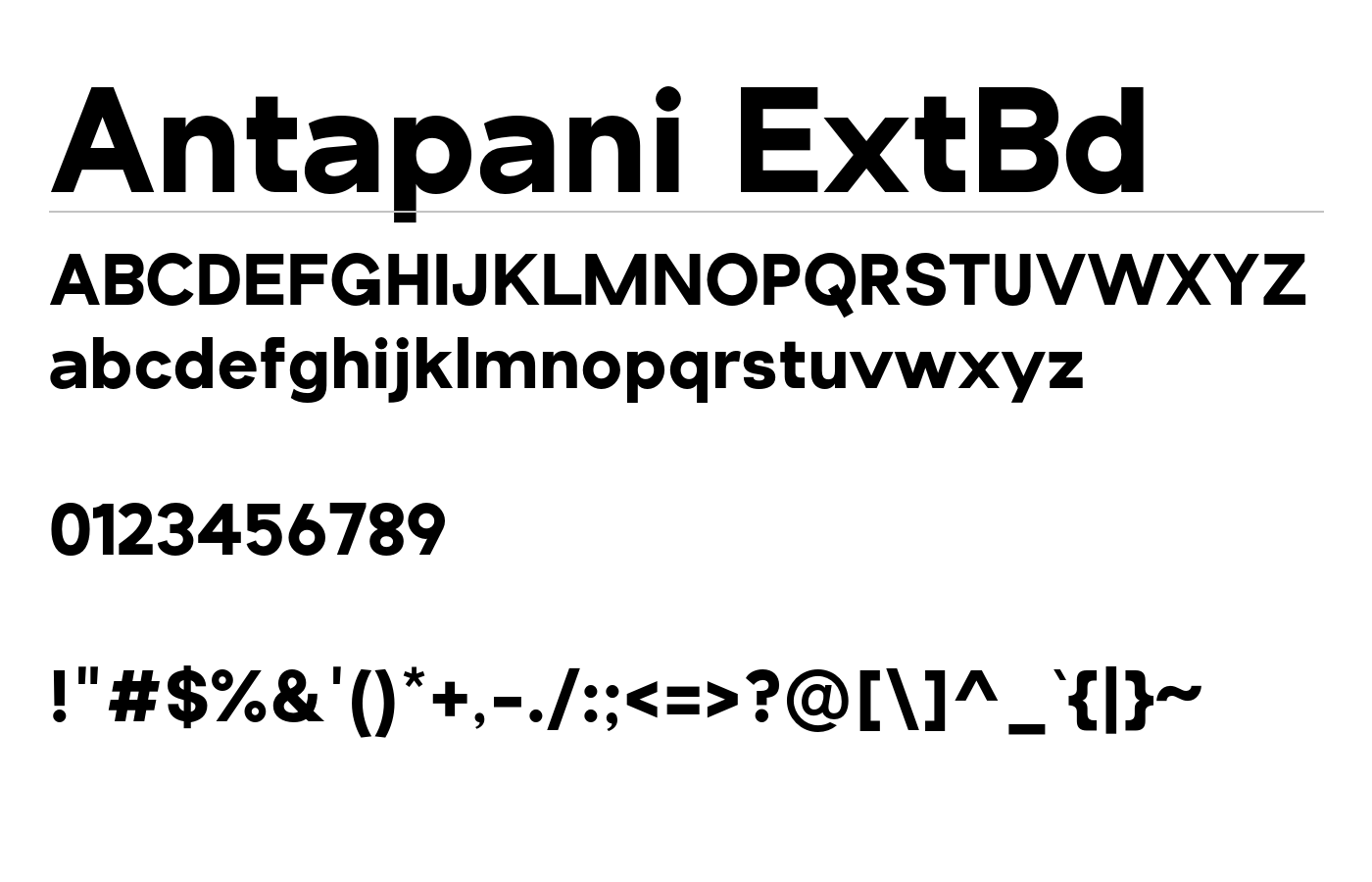
Antapani ExtBd is a bold, geometric sans serif font characterized by its clean, modern, and slightly condensed letterforms. With a balanced x-height and uniform stroke weight, it offers excellent readability and a strong presence, making it ideal for headlines, logos, and branding that seek a contemporary, confident look. Its straightforward style communicates clarity and professionalism, fitting well in editorial design, websites, and packaging where bold impact is needed.
Antapani Font
About Antapani Font
| Font family | Antapani Font |
| Languages supported | Latin, Cyrillic, Symbols, Greek |
| Designer | Abdurrahman Hanif |
| Font subfamily | ExtraBold |